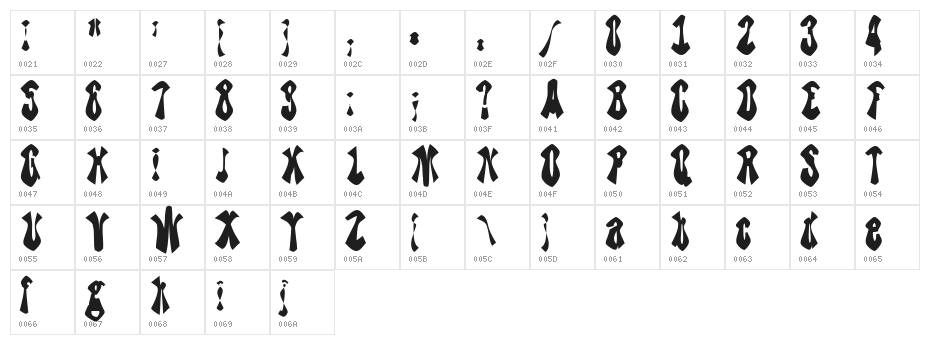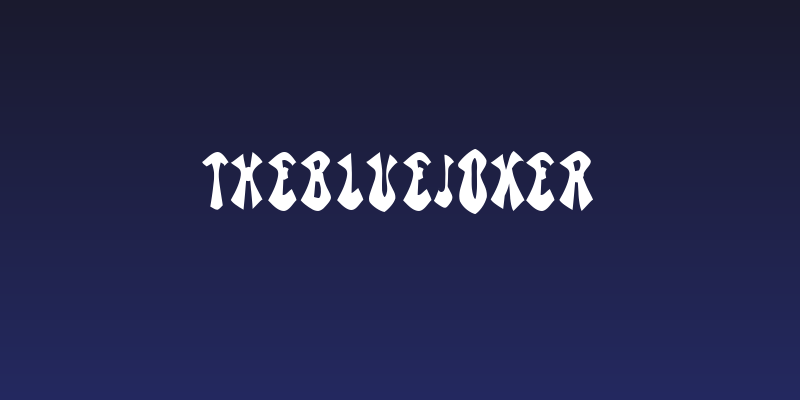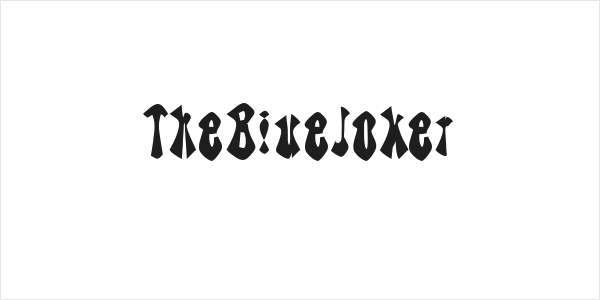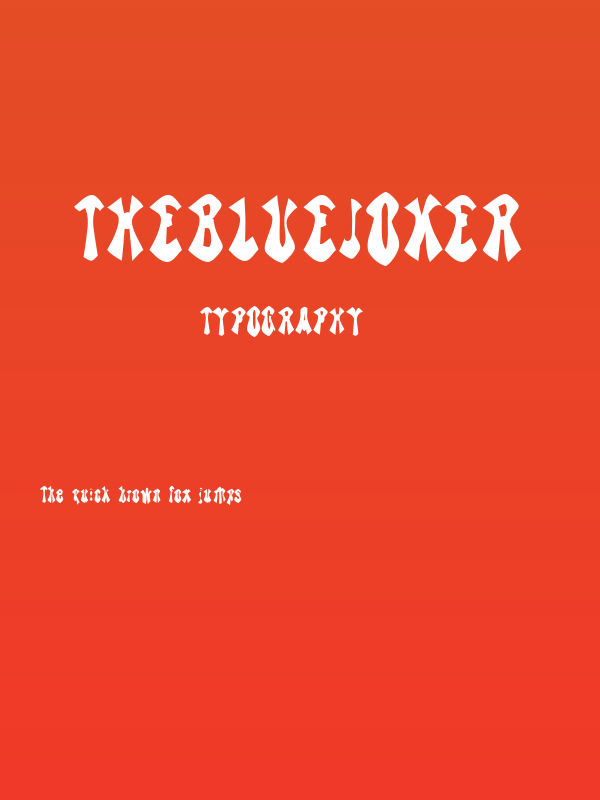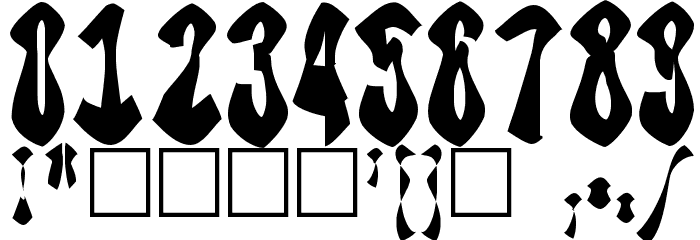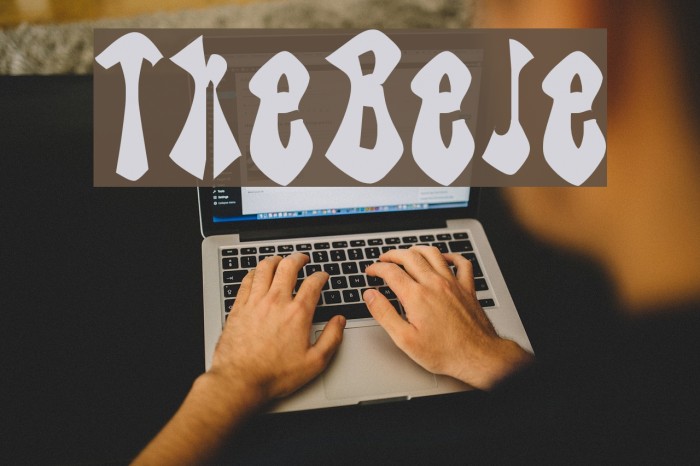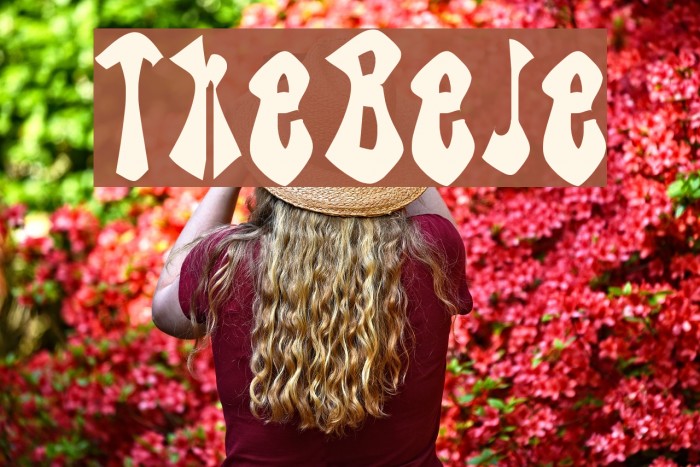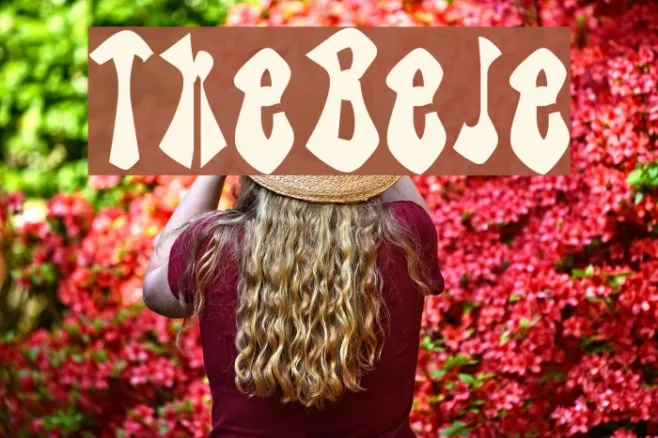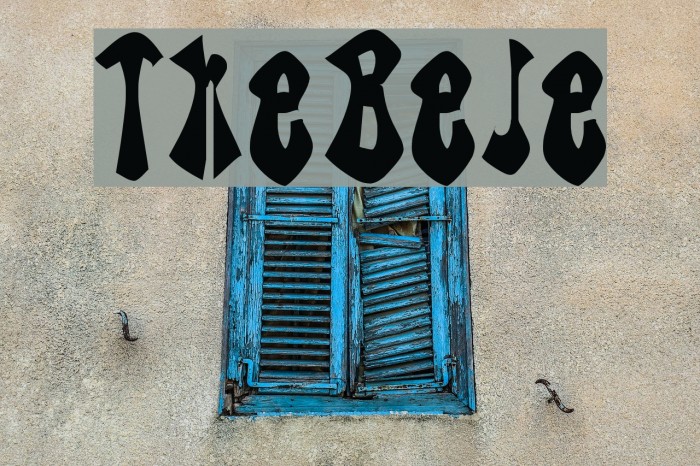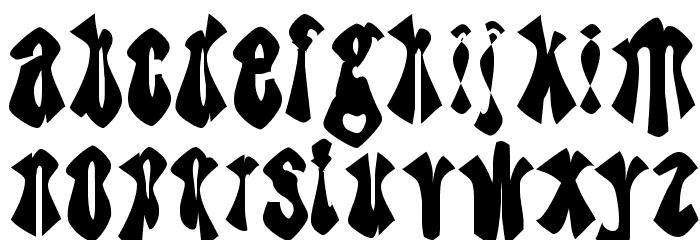
TheBlueJoker Font
TheBlueJoker Description
This font features a bold and dramatic style with exaggerated curves and sharp angles, creating a striking visual impact. The characters are highly stylized, with a unique blend of thick and thin strokes that give it a dynamic and artistic flair. The uppercase and lowercase letters maintain a consistent design theme, while the numbers and special characters complement the overall aesthetic. This font is designed to capture attention and convey a sense of creativity and boldness, making it ideal for projects that require a strong visual presence.
| Proposed Projects | Ideal for posters, album covers, branding, and any project needing a bold artistic touch. |